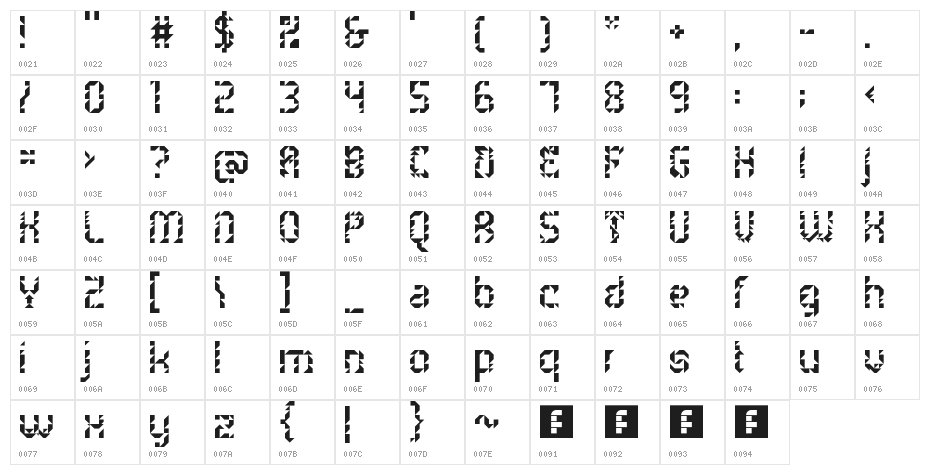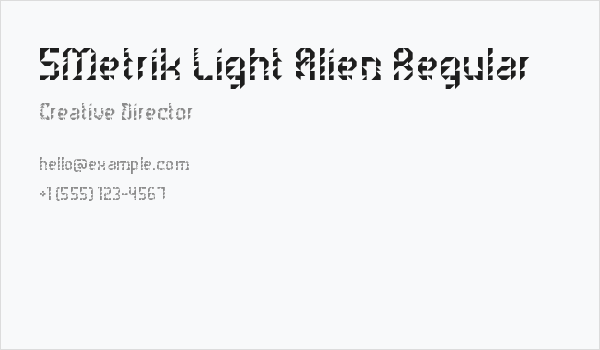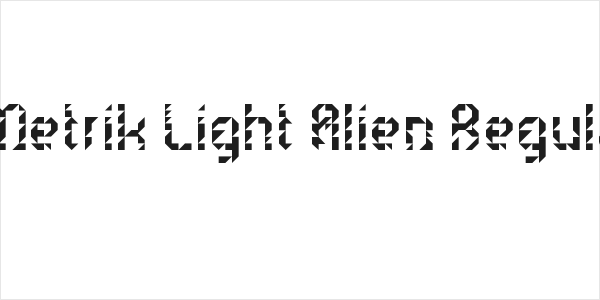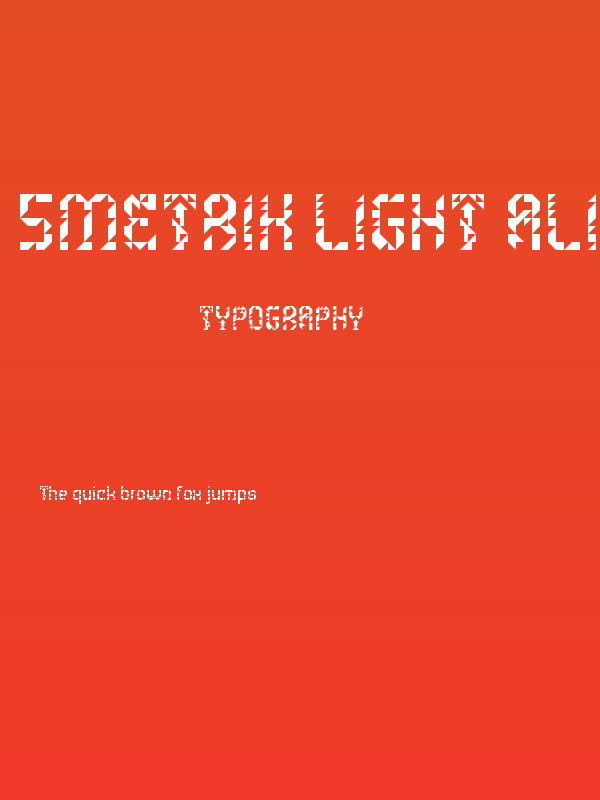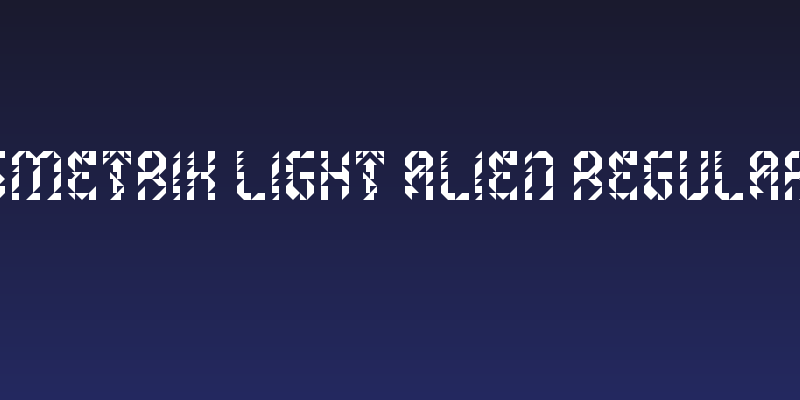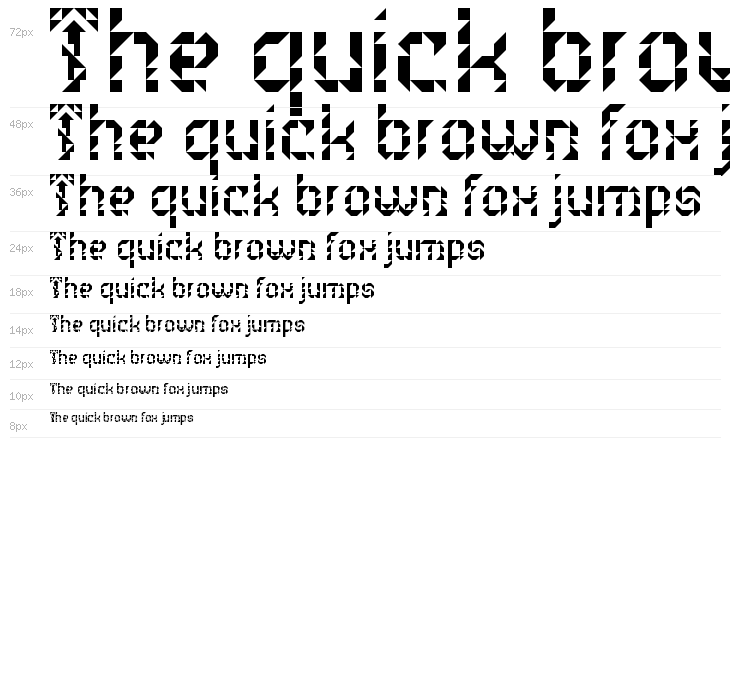
5Metrik Light Alien Regular Font
5Metrik Light Alien Regular Description
This font features a futuristic and geometric design, characterized by sharp angles and a blocky appearance. Each character is constructed with a series of triangular and rectangular shapes, giving it a unique, alien-like aesthetic. The uppercase and lowercase letters maintain a consistent style, with the lowercase being slightly more compact. Numbers and special characters follow the same design principles, ensuring uniformity across all glyphs. The font's distinct style makes it stand out, ideal for projects that require a modern and unconventional look.